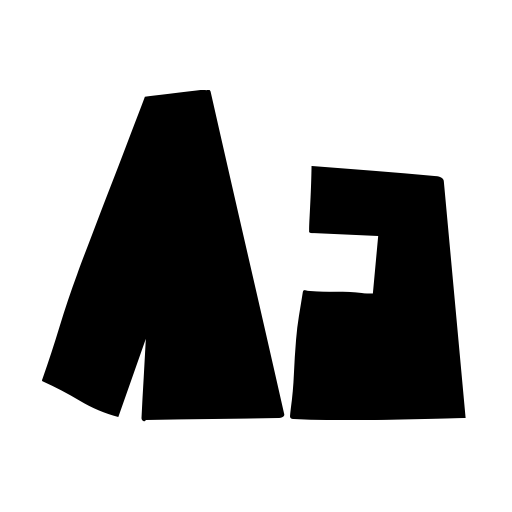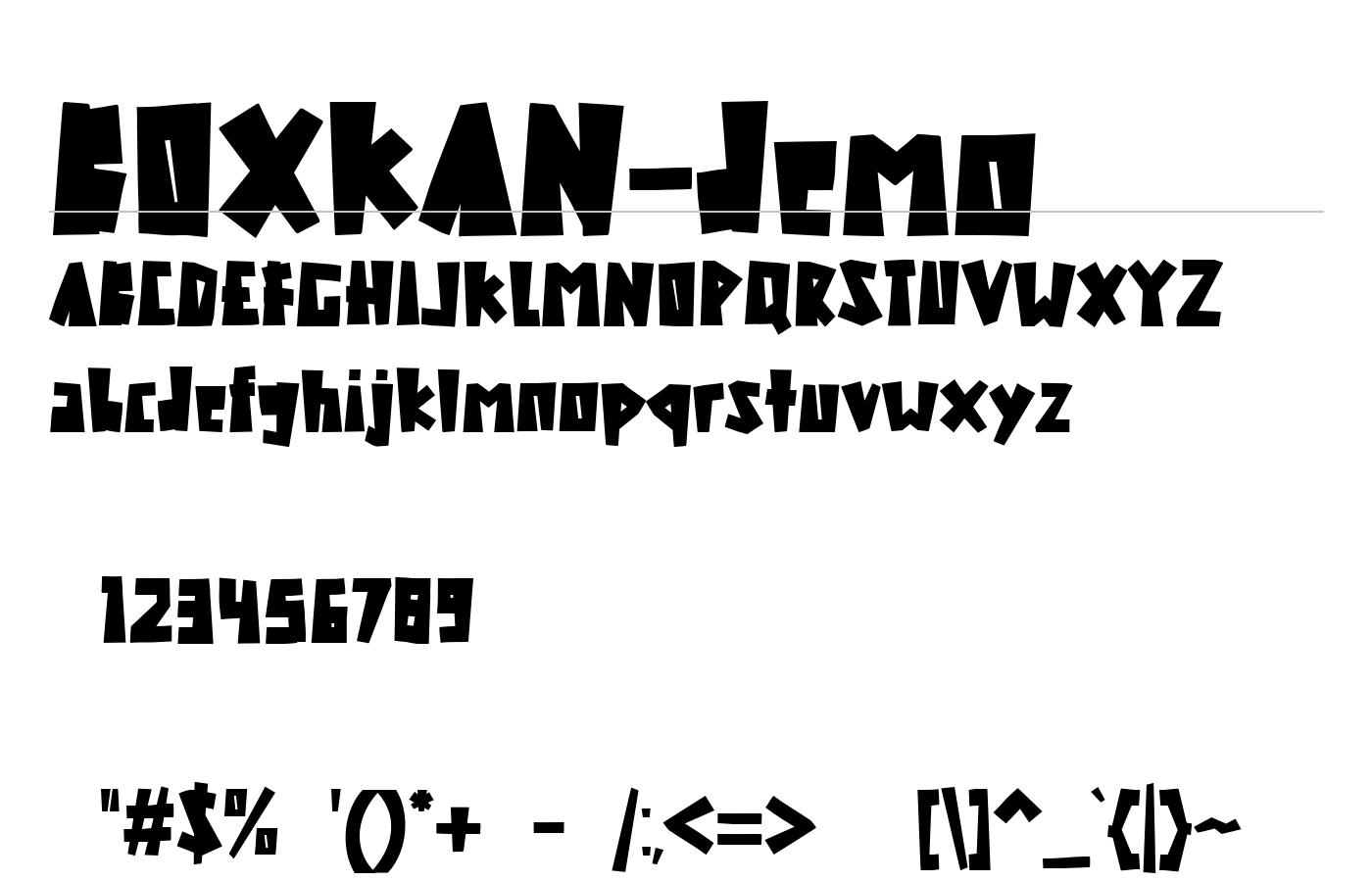
BOXKAN-demo is a bold, playful sans serif font with an irregular, hand-cut look that makes each letter feel unique and dynamic. Its heavy weight, uneven shapes, and quirky style give it an energetic, informal personality perfect for eye-catching headlines, posters, and creative branding where a fun, unconventional vibe is desired. This font shines in designs that want to stand out with a bold, spirited, and slightly rebellious character.
BOXKAN-demo Font